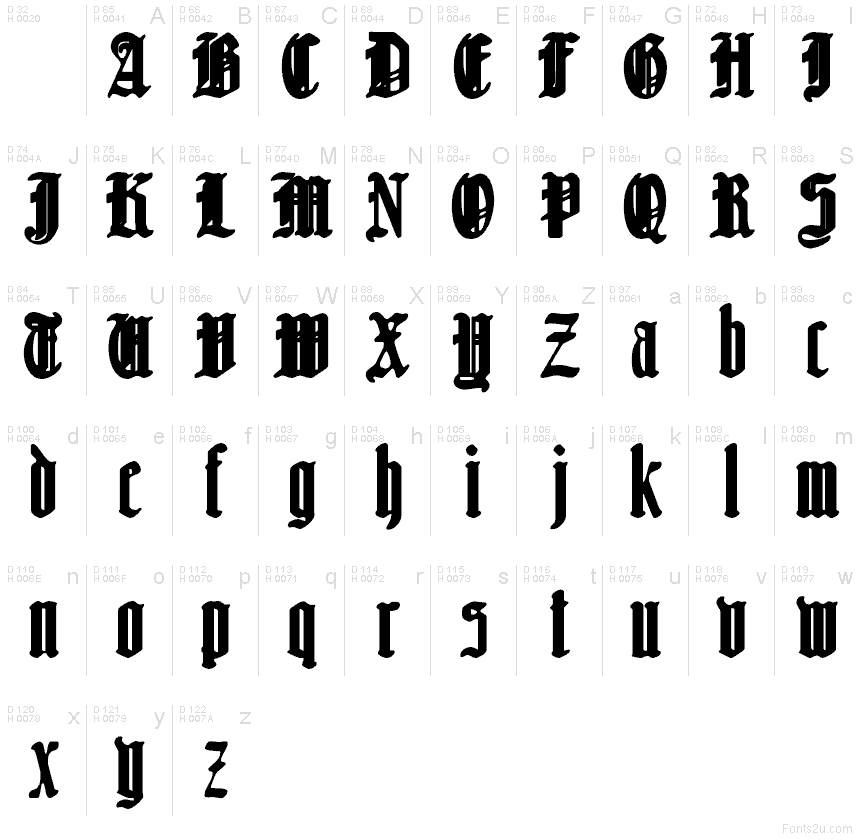
CSNamikaDrawn-Regular Demo
CS Namika Drawn font by Craft Supply Co. is a free medieval gothic font from the CS Namika family. It stands out with hand-inked textures—dense strokes, chiseled curves, and slightly torn edges that feel like they were pulled from a woodcut. The vertical rhythm is tight and commanding, giving headlines instant weight without losing legibility. There’s a gritty sheen to it, like fresh black ink drying on parchment.
Using CS Namika Drawn, you’ll get striking results for band posters, craft beer labels, fantasy game titles, tattoo studio marks, festival signage, and dark heritage branding. This free font thrives oversized, where its grain and spiky terminals can breathe. Pair with a clean, understated sans-serif to keep copy readable while the gothic mood takes center stage.